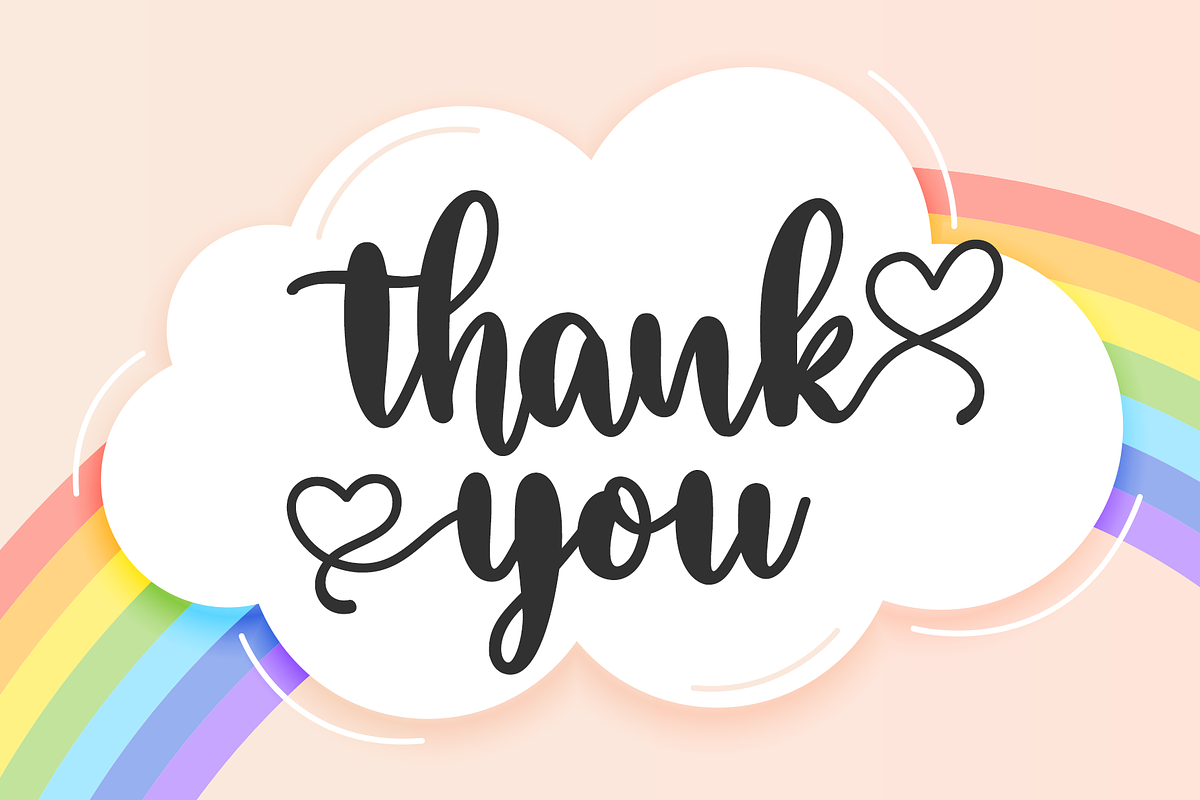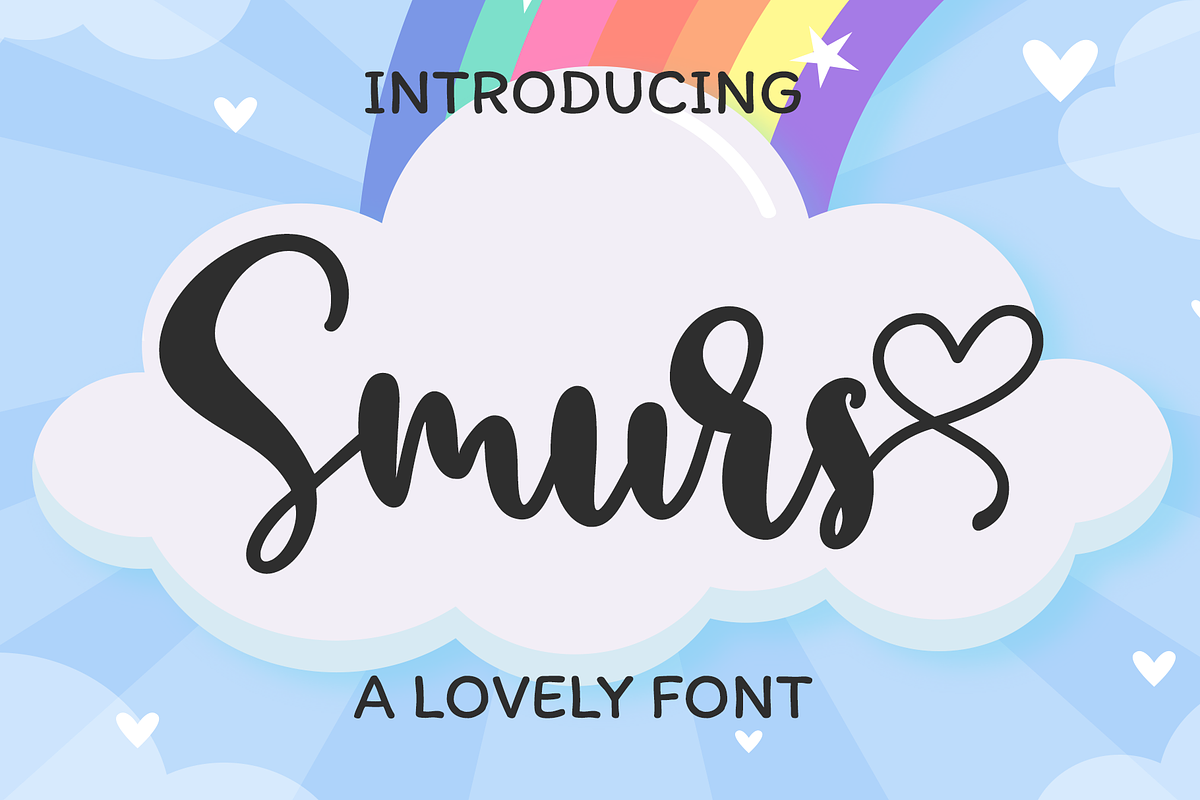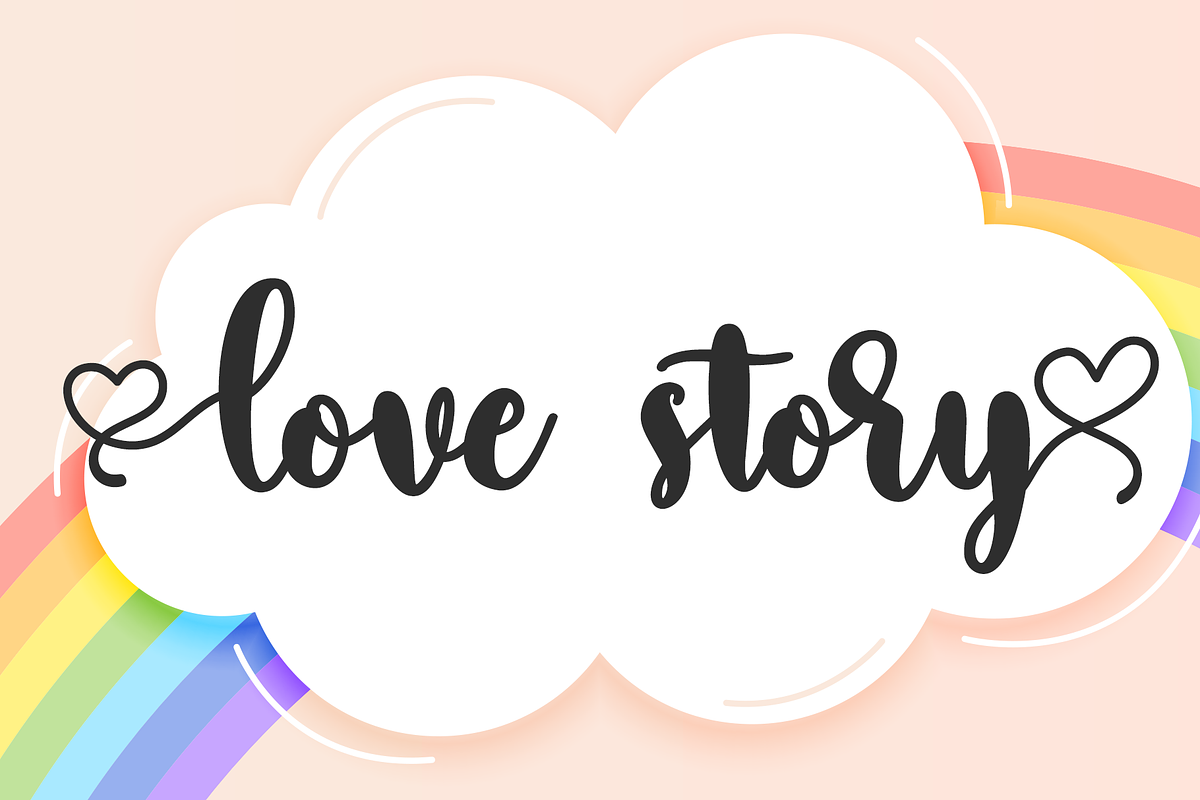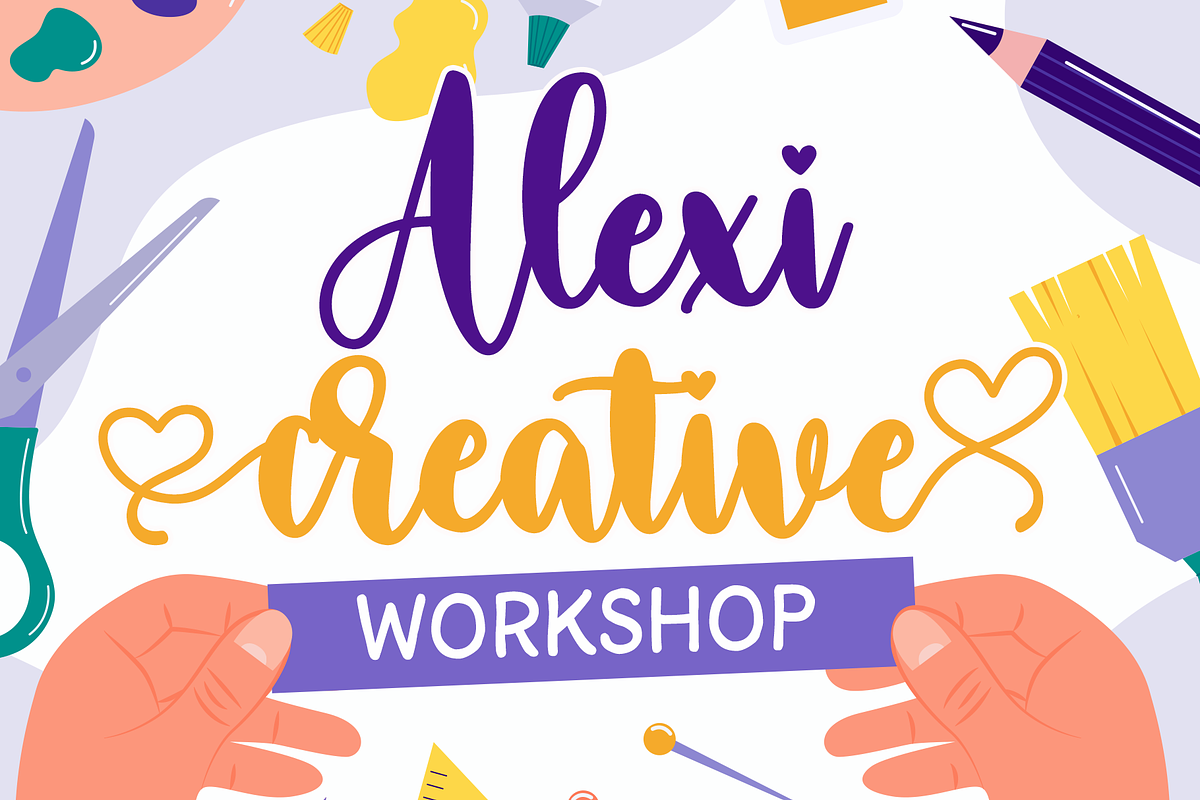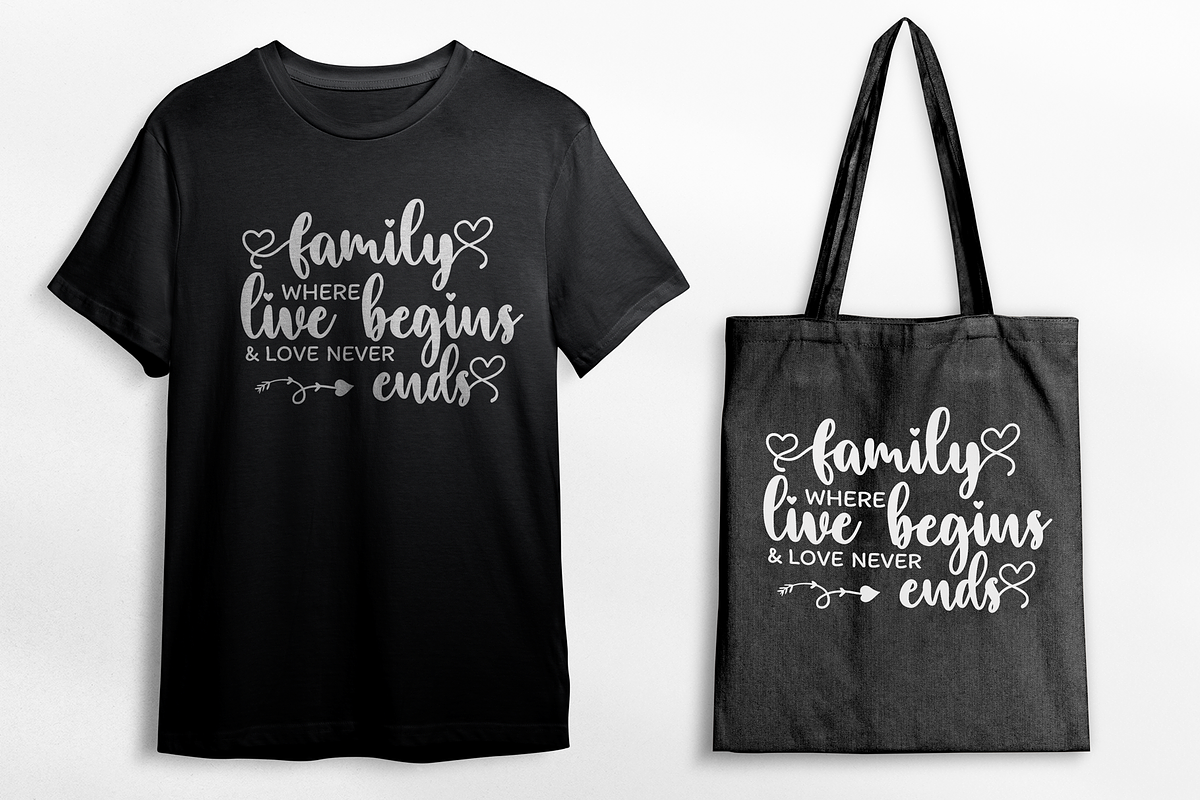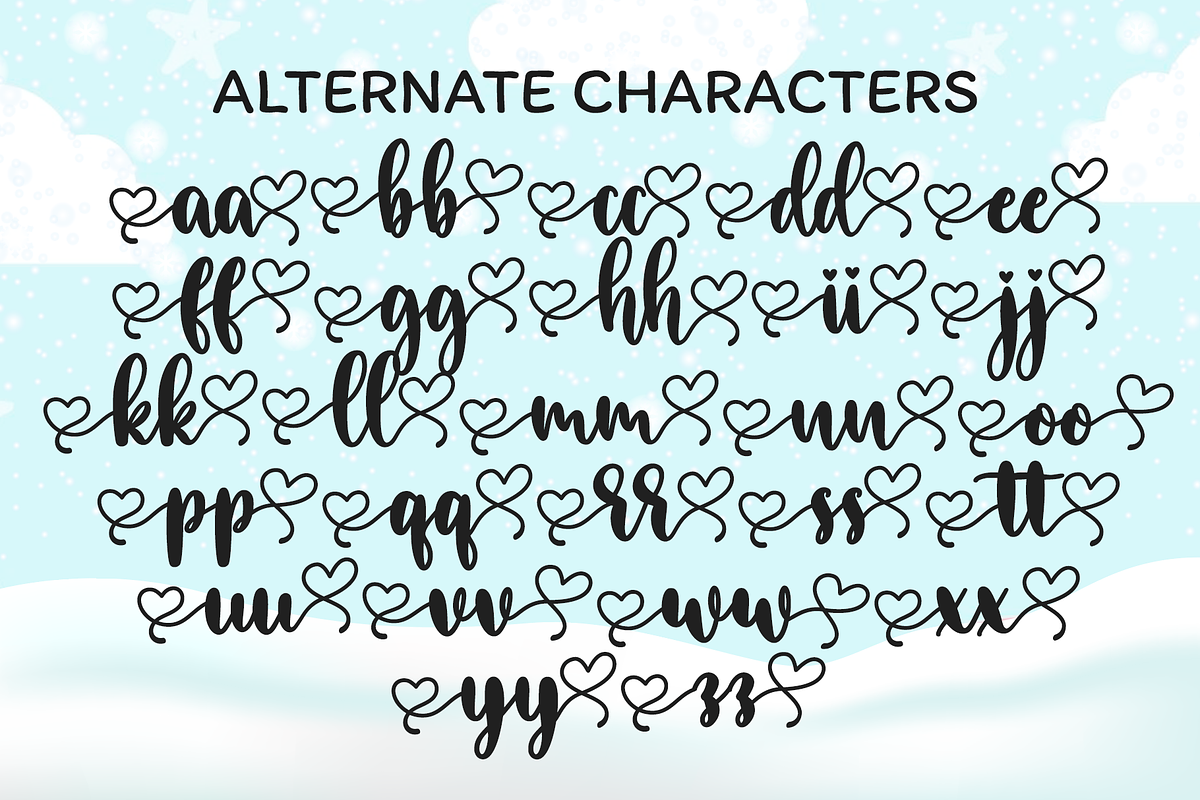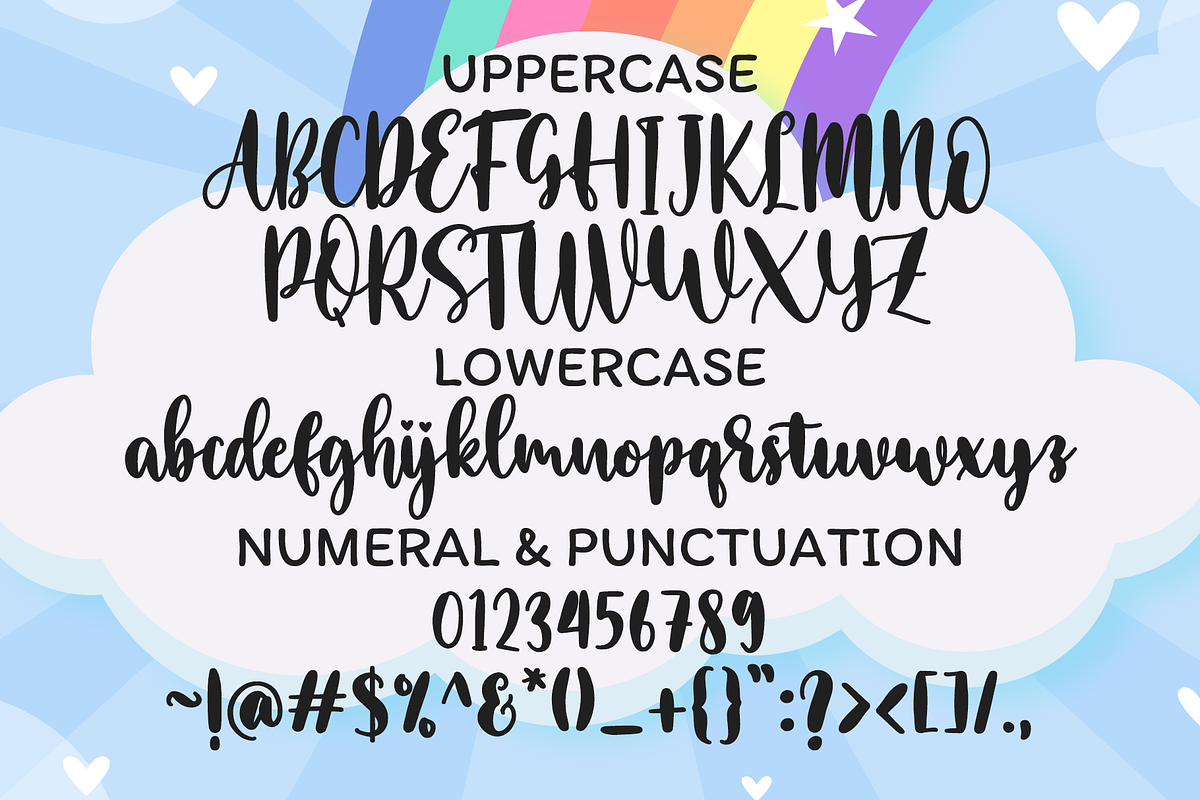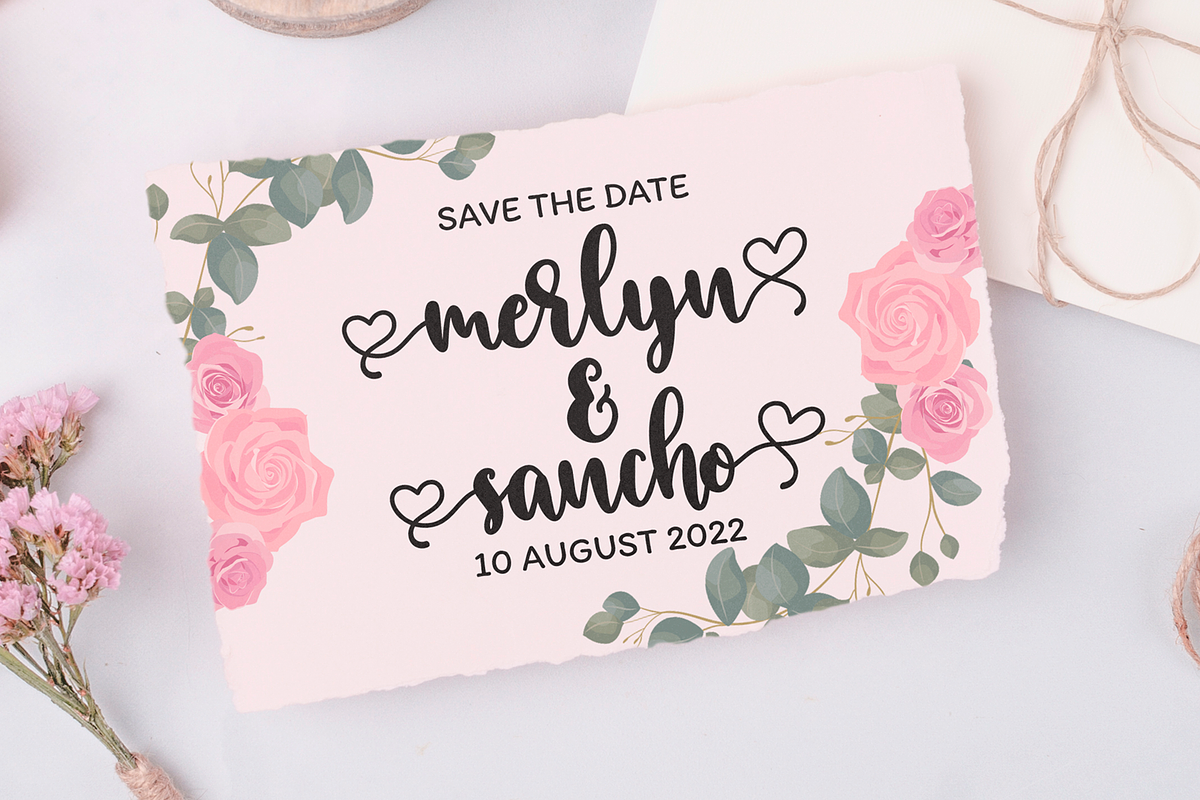
Smurs | Love Font
Smurs is a quirky and laid-back handwritten font. Whatever the topic, this font will be a wonderful asset to your font library, as it has the potential to enhance any creation. Smurs is PUA encoded which means you can access all of the amazing glyphs and ligatures with ease!
- Ligature Character
- Alternate Characters